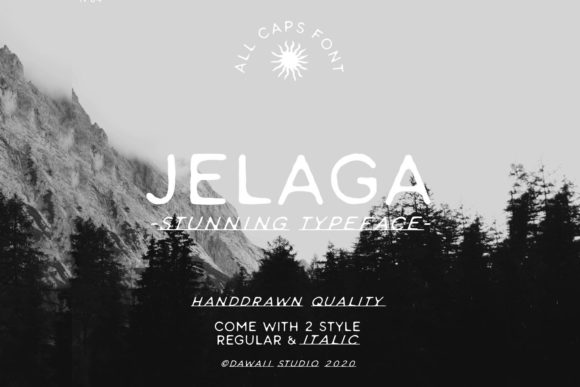
Looking for a font that adds a personal, artistic touch to your designs? Jelaga is a stunning handwritten font with a raw-vintage style that can elevate any project. Whether you're creating logos, social media content, or print materials, Jelaga brings a unique charm and character that stands out from the crowd.
The Beauty of Jelaga's Handwritten Style
Jelaga mimics the natural flow of handwriting, giving your text a warm and authentic feel. This font is perfect for those who want to add a personal flair to their work without sacrificing readability. Its elegant curves and subtle imperfections make it look like it was written by hand, not generated by a machine.
Why choose Jelaga? It offers a vintage aesthetic that blends well with retro themes, vintage branding, and nostalgic marketing campaigns. The font’s soft edges and fluid strokes make it ideal for creative projects that require a touch of personality.
Who Would Benefit from Using Jelaga?
Practical Uses of Jelaga in Different Projects
Jelaga is incredibly versatile and can be applied in various contexts. Here are some practical examples of how you can use it:
1. Logo design: A logo using Jelaga can convey authenticity and creativity. It works especially well for brands that want to appear friendly and approachable.
2. Social media graphics: Use Jelaga in captions, hashtags, or overlay text on images to add a unique style that resonates with your audience.
3. Invitations and cards: Wedding invitations, birthday cards, or thank-you notes designed with Jelaga will feel more personal and heartfelt.
4. Print materials: Brochures, flyers, and magazine layouts benefit from Jelaga’s vintage appeal, making them visually appealing and memorable.
One thing to keep in mind is that Jelaga should be used sparingly. While it adds character, overusing it can make your text hard to read. Always balance style with clarity.
Getting Started with Jelaga
If you're new to using fonts like Jelaga, start by experimenting with different sizes and weights. Try pairing it with a sans-serif font for headings and body text to maintain readability. You can also explore online tools and font generators that allow you to customize Jelaga further.
Another tip is to consider the context of your project before choosing Jelaga. While it works well for creative and vintage-themed designs, it may not be the best fit for formal documents or technical writing where a clean, modern font is preferred.
Why Jelaga Stands Out Among Handwritten Fonts
Compared to other handwritten fonts, Jelaga has a distinctiveness that sets it apart. Its raw-vintage style gives it a timeless quality that feels both classic and contemporary. Unlike overly stylized or decorative fonts, Jelaga maintains a sense of simplicity and elegance.
For beginners, Jelaga is an excellent choice because it’s easy to use and doesn’t require advanced typography skills. Just apply it to your text and adjust the spacing and alignment as needed.
Considerations Before Choosing Jelaga
Before deciding to use Jelaga, think about the following factors:
By considering these aspects, you can make an informed decision and ensure that Jelaga enhances rather than detracts from your project.
In conclusion, Jelaga is more than just a font—it’s a creative tool that can transform your designs. Whether you're a beginner or a seasoned designer, Jelaga offers a unique opportunity to bring your projects to life with a touch of vintage charm and authenticity.